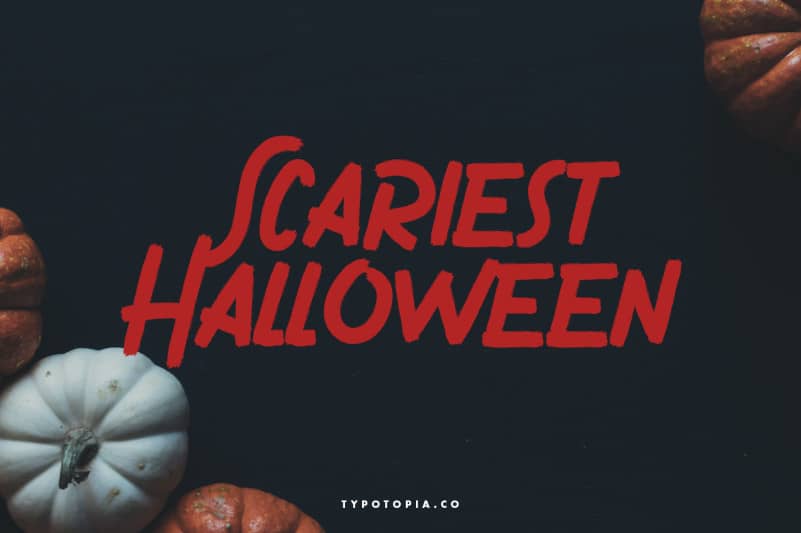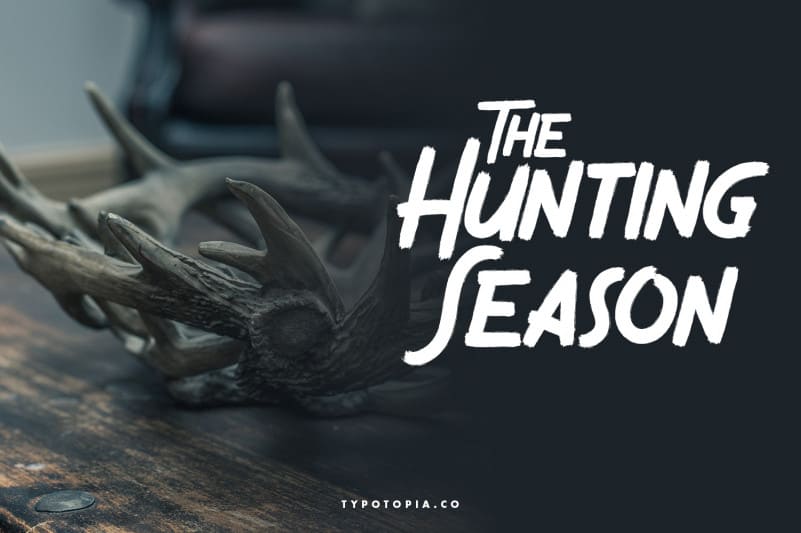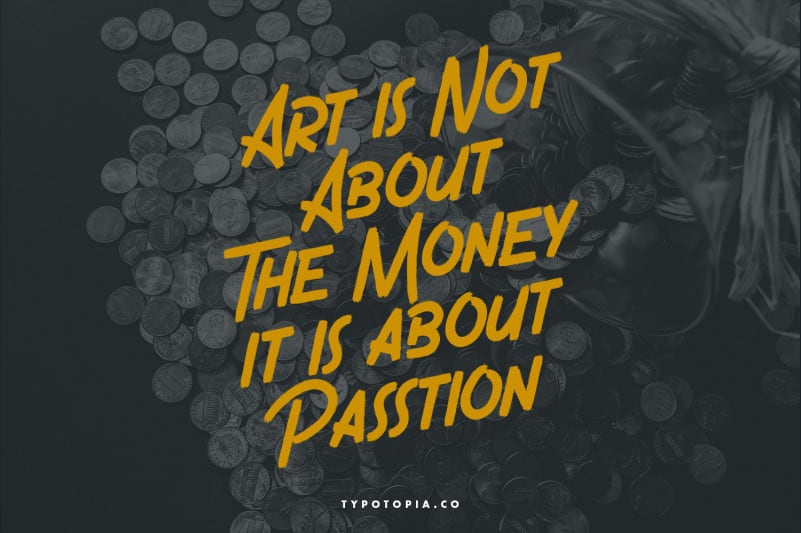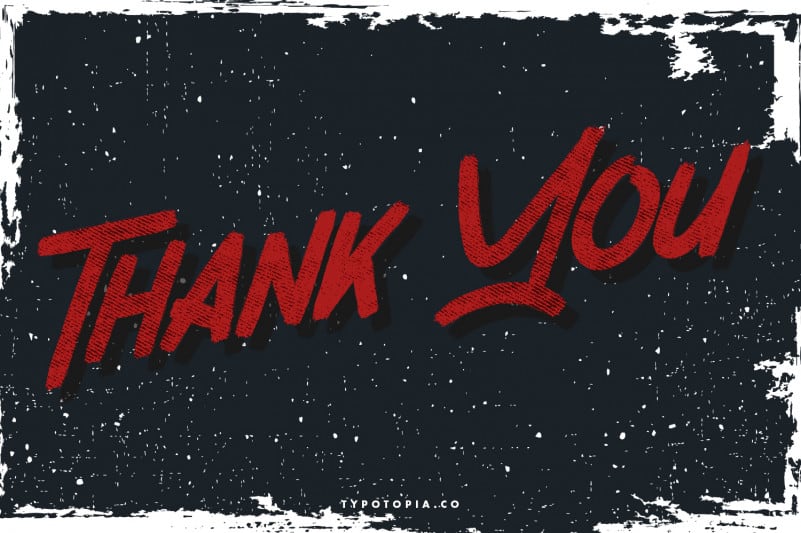
Gronzy Brush Font
Introducing Gronzy Brush Font , This Horror Theme Typeface Comes with Unique Style
Gronzy Brush Font is the great choice for several purpose, it suitable for horror movie title, movie posters, poster loud music, and other similar designs. Horror Joys Typeface is perfect for those of you who like mystery, myths and ghost stories.